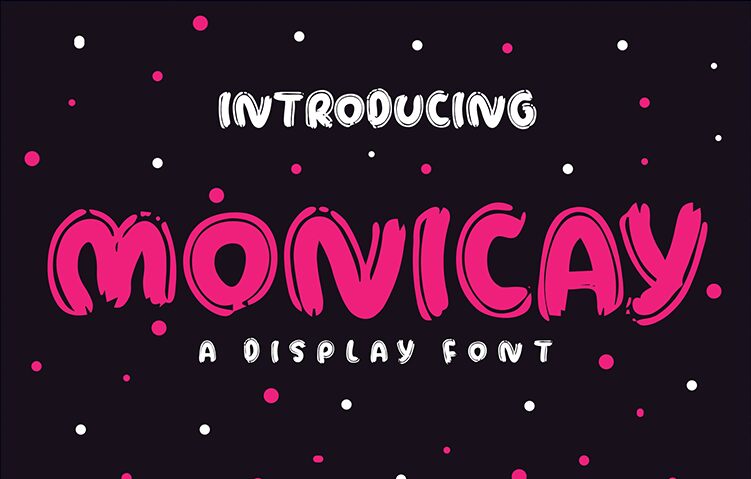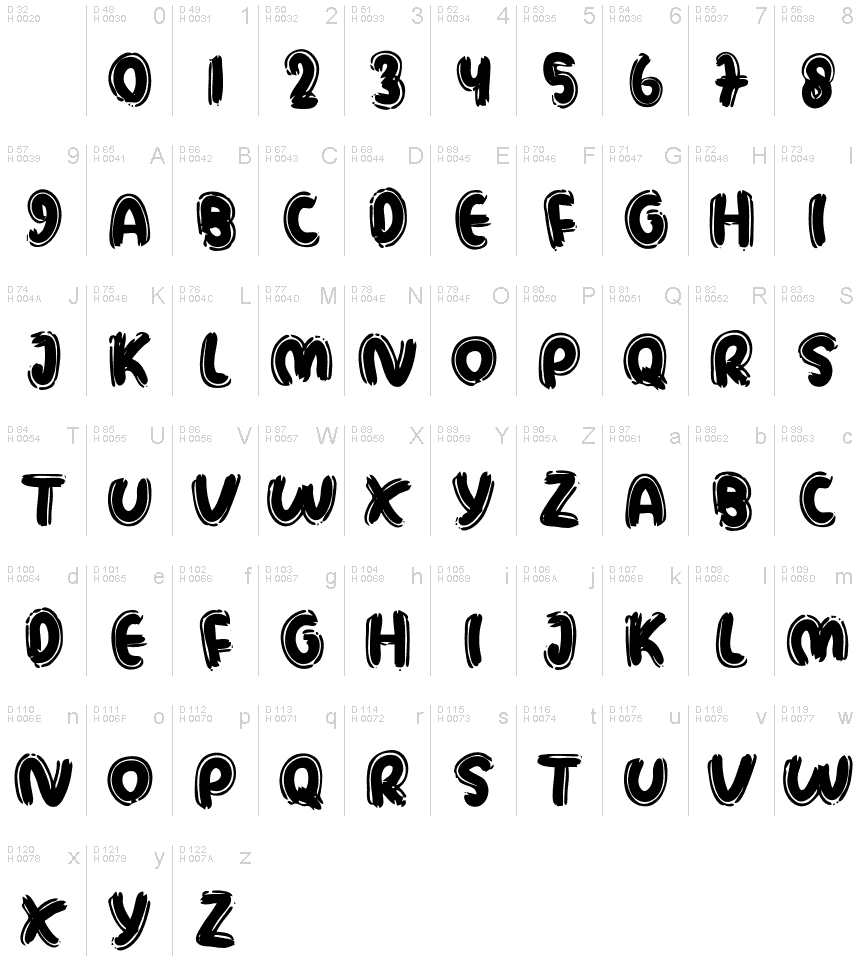
MONICAY
Meet MONICAY, the bold and beautiful display font designed by Share Font. With its unique brush style, MONICAY is perfect for adding a touch of creativity and flair to your design projects. The semi-expanded width adds an extra level of interest, making it ideal for use in headlines or titles. Whether you're working on a poster for a music festival, creating branding materials for an edgy fashion line, or designing eye-catching social media graphics, MONICAY is the perfect choice to make your designs stand out from the crowd. So why settle for ordinary when you can have extraordinary with MONICAY?